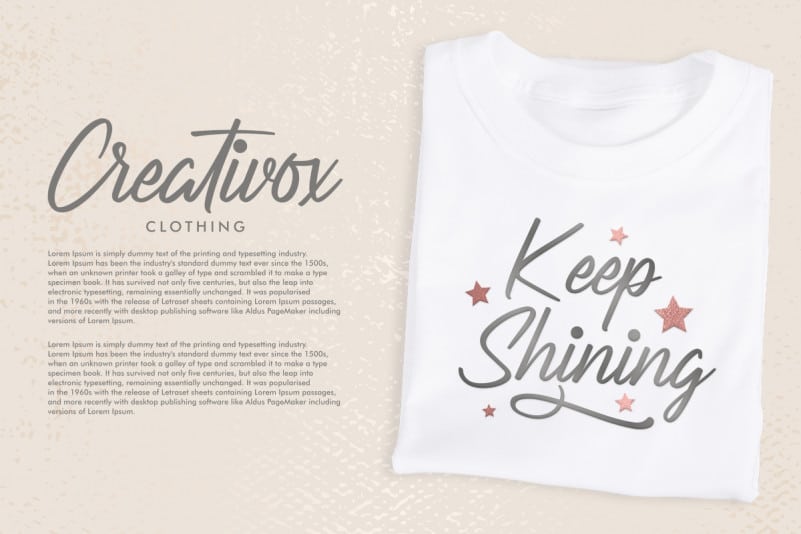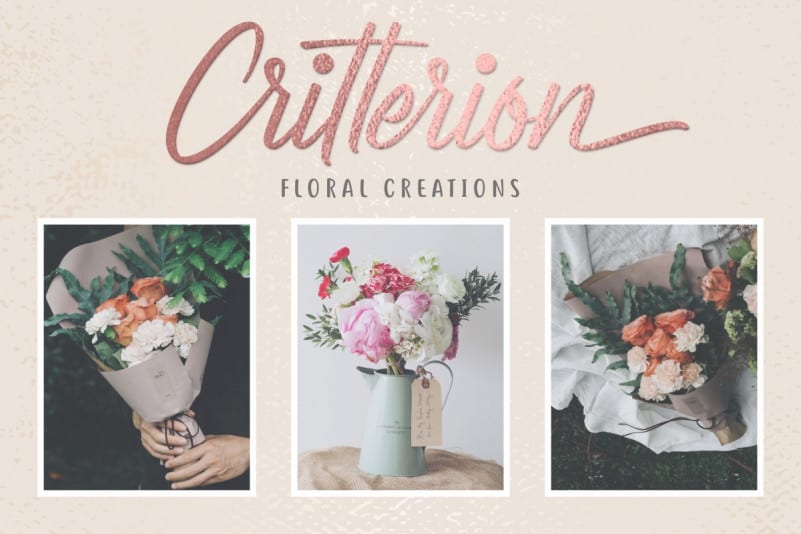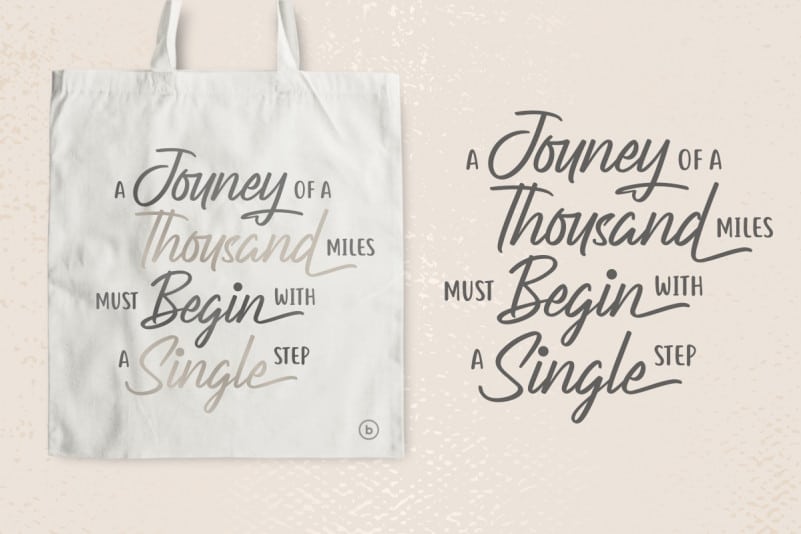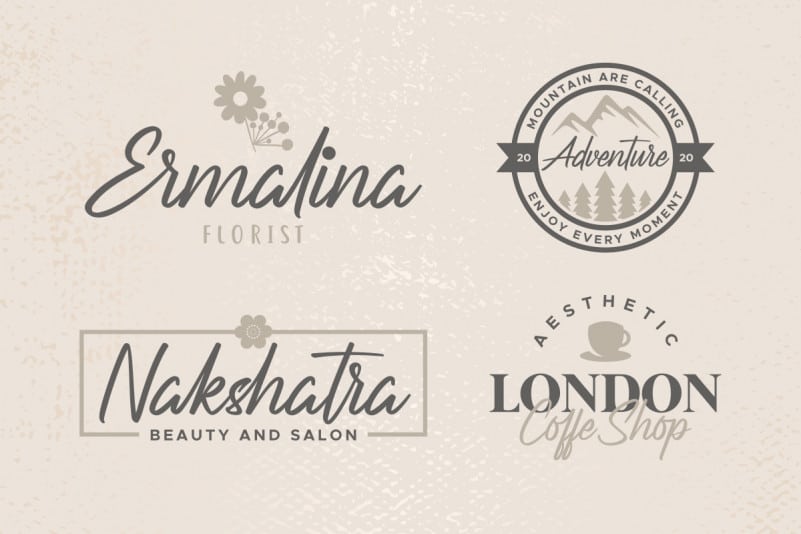
Belongest Calligraphy Font
Belongest Calligraphy Font will be awesome for many projects (some require extended license) including : branding, logo, stationery, business card, signage, flyer, brochure etc. The theme style of the font is elegant, luxury, glamour, gold, vintage, stylish, sophisticated and classic brush style.
The font will be match for this typeface: wedding, events, real estate, architect, law firm, florist, gardening, makeup artist, travel, hotel, musician etc